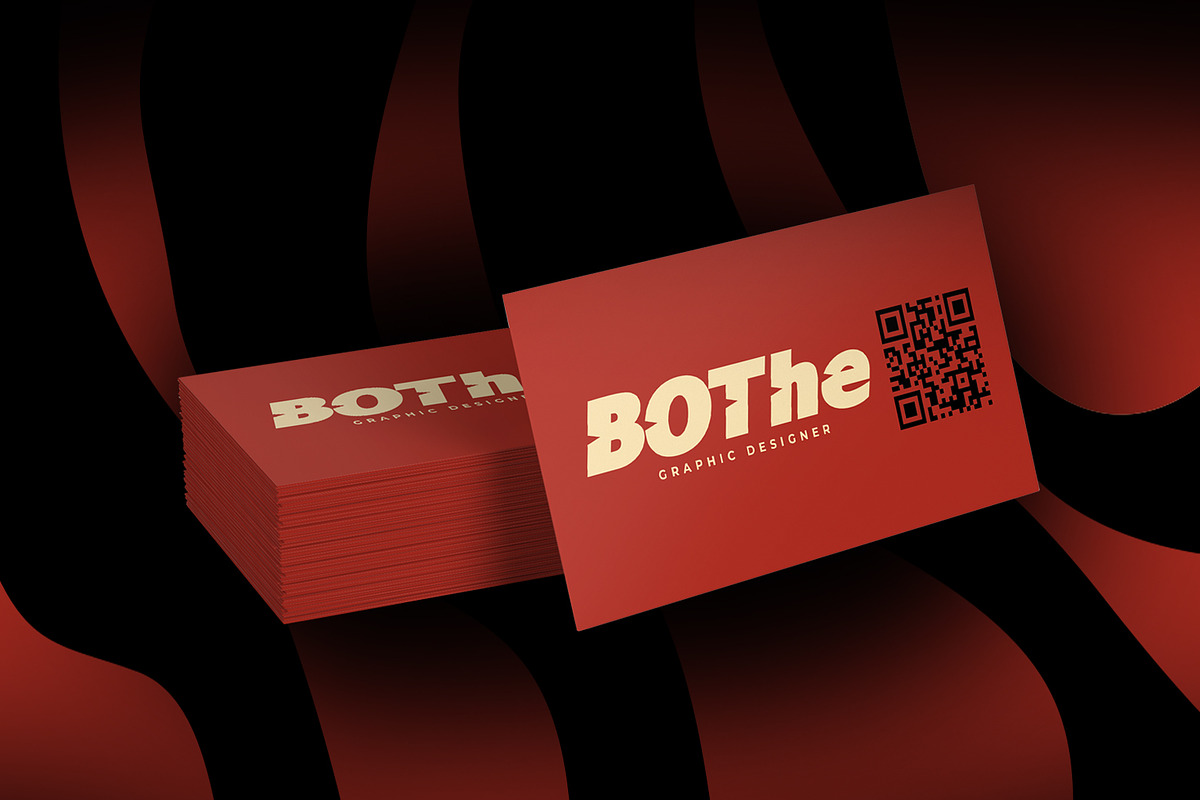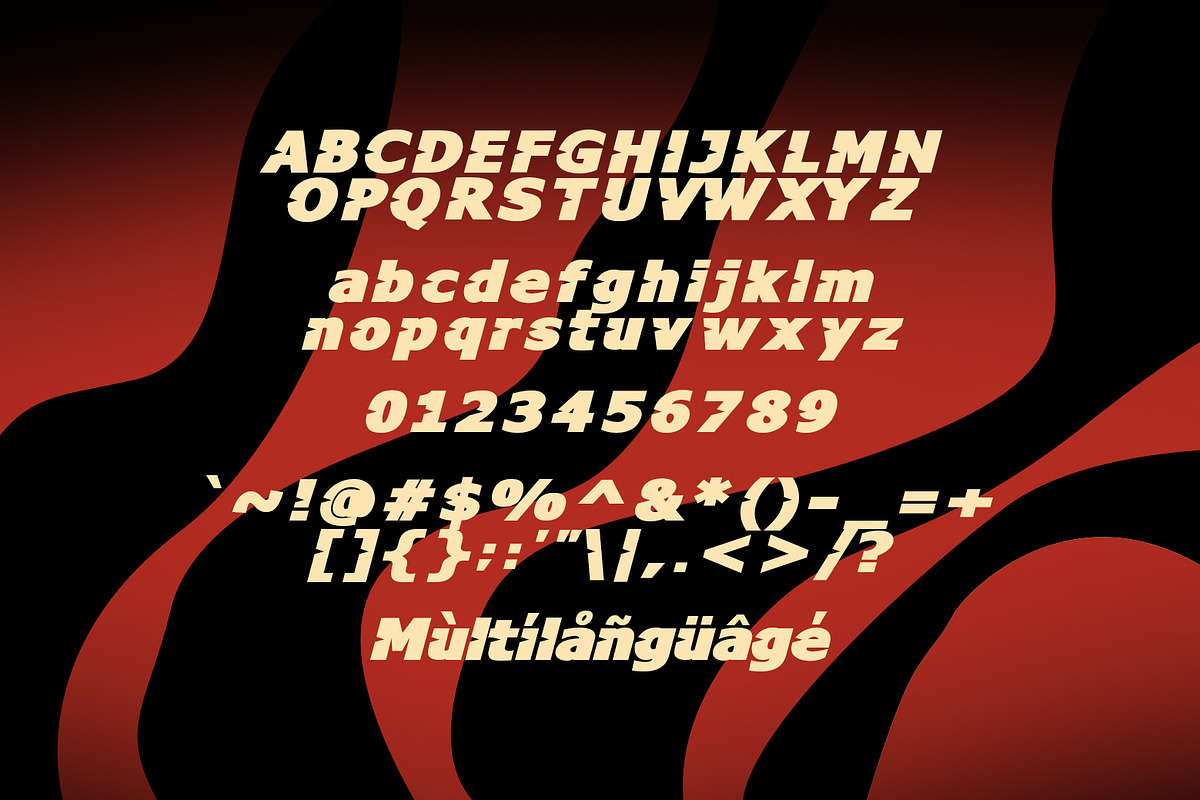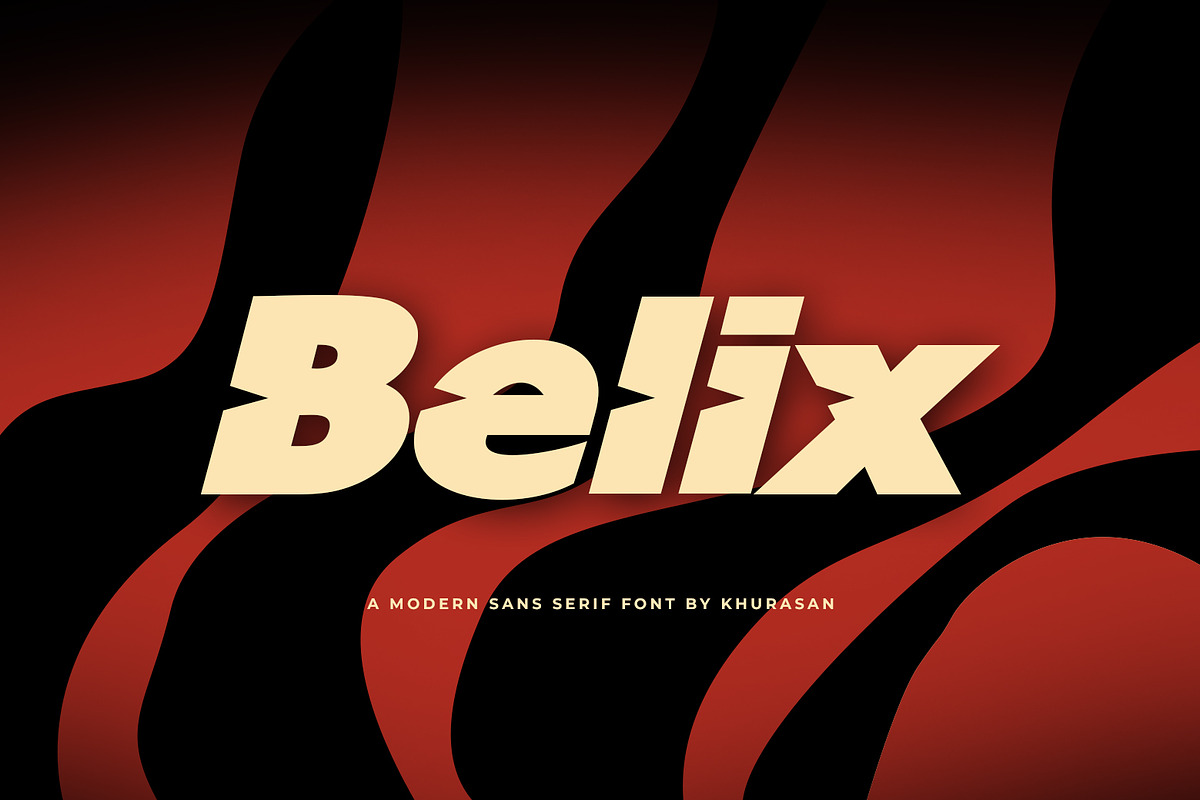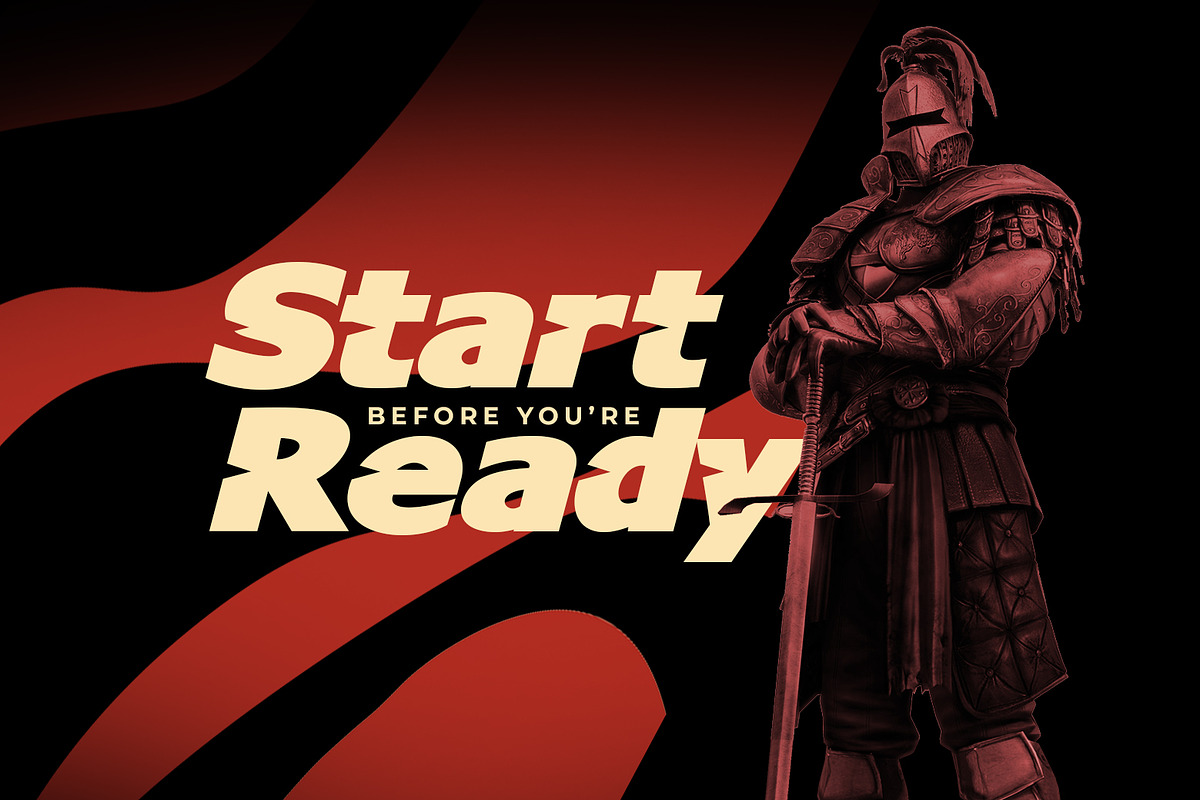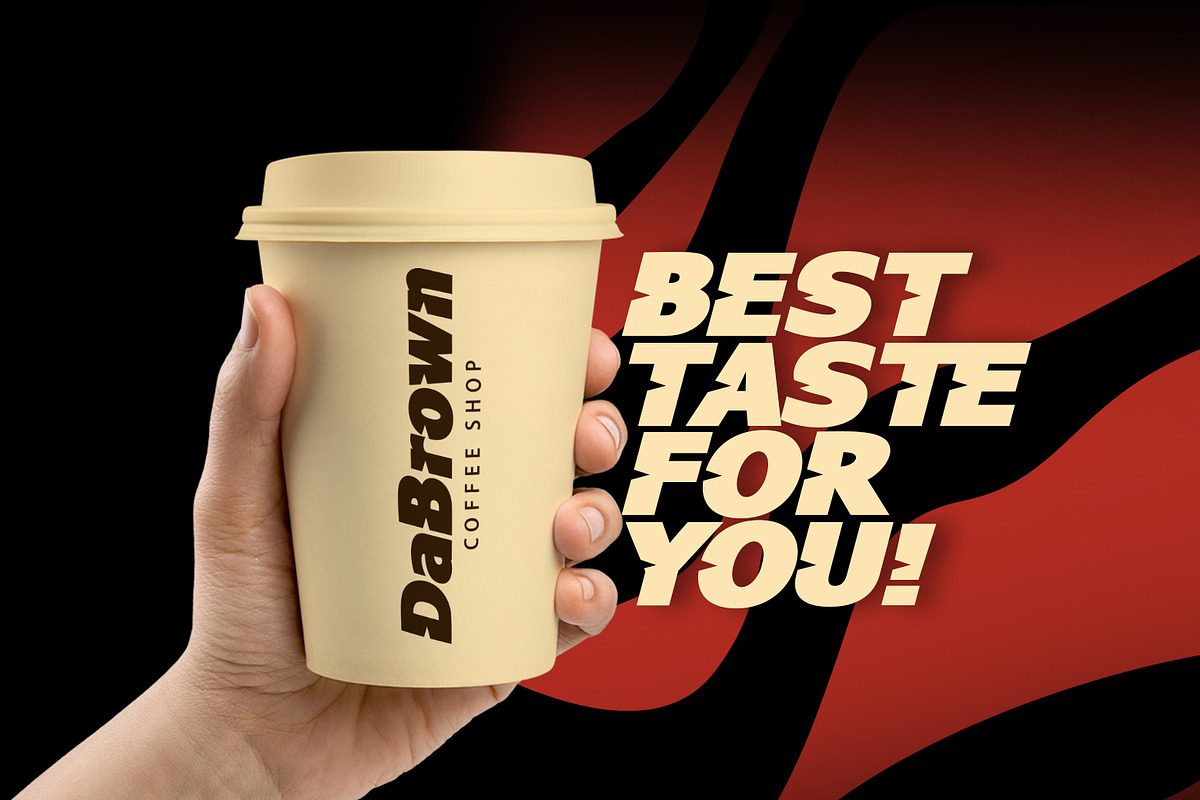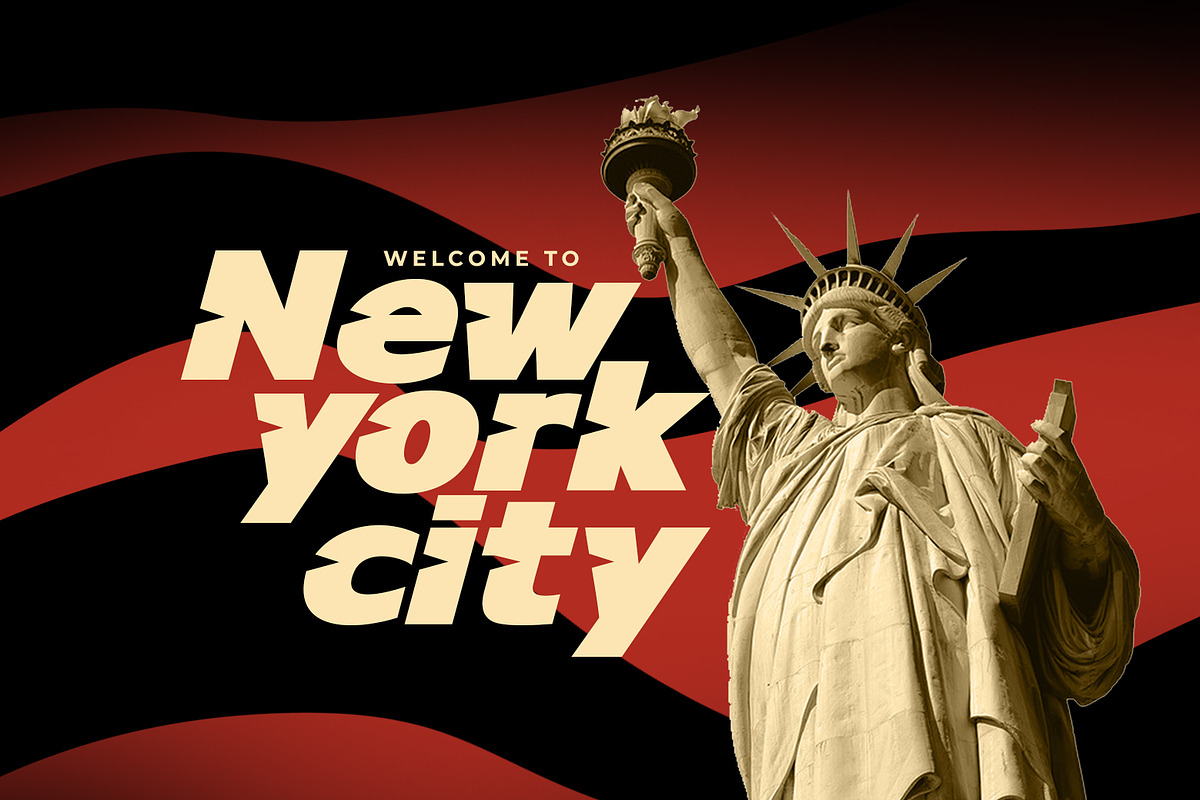
Belix
The Belix is a modern bold sans serif font, elegant and modern feel character set. The Belix unique font with truncated font style as well as multi-lingual support, uppercase, numerals, & punctuation.